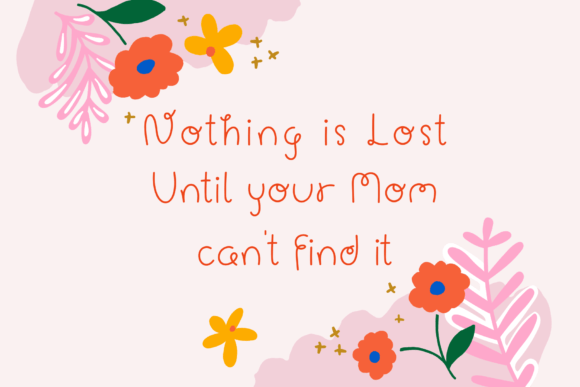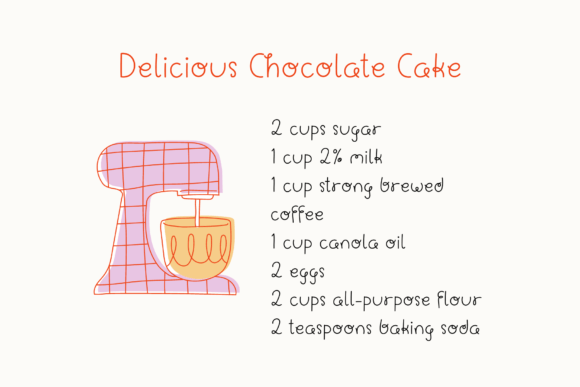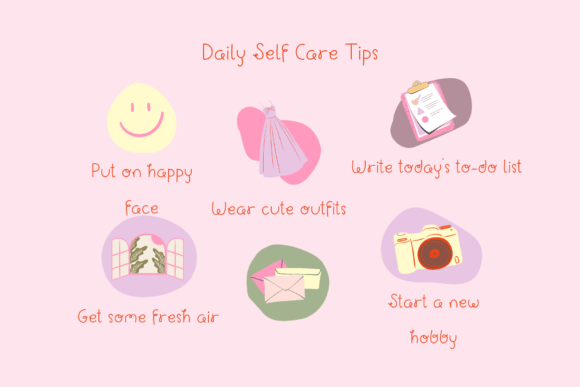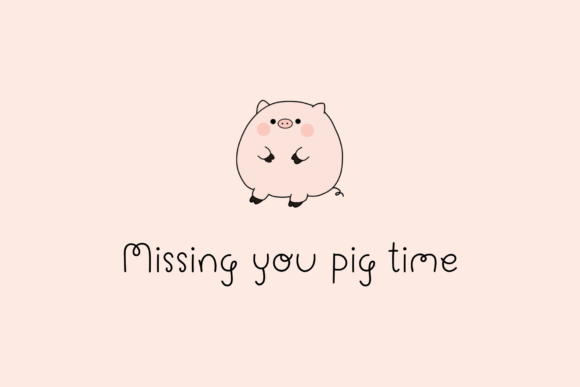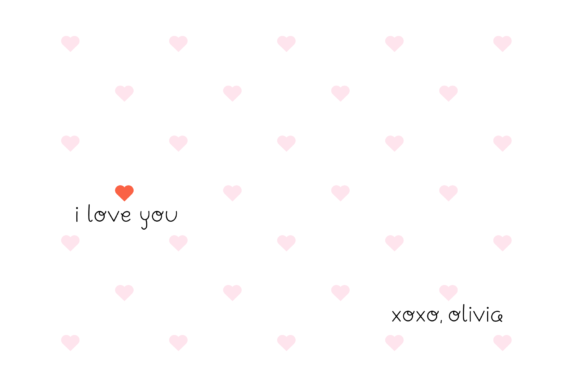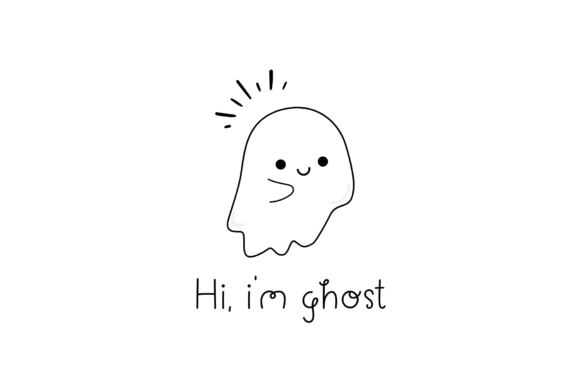
Introduction to Piglet’s Tail Font Font
Fonts play a crucial role in design, and the Piglet’s Tail Font font is a typeface that brings both character and versatility to any project. Whether you’re working on a branding project, a website, or a print design, the Piglet’s Tail Font font offers a unique style that can elevate your work.
| 📌 Font Name | Piglet’s Tail Font |
| 👤 Author | Cotton White Studio |
Piglet’s Tail is a sweet and friendly handwritten font.
Key Features of Piglet’s Tail Font Font
Why Choose Piglet’s Tail Font Font?
The Piglet’s Tail Font font is more than just a typeface – it’s a design tool that helps you communicate your message with style and clarity. Its unique character set and versatile design make it suitable for a wide range of applications, from elegant invitations to bold headlines.
With its carefully crafted letterforms and balanced proportions, the Piglet’s Tail Font font ensures readability and visual appeal across all mediums.
What makes Piglet’s Tail Font font special?
The Piglet’s Tail Font font stands out with its unique design, exceptional readability, and versatility across various design applications.